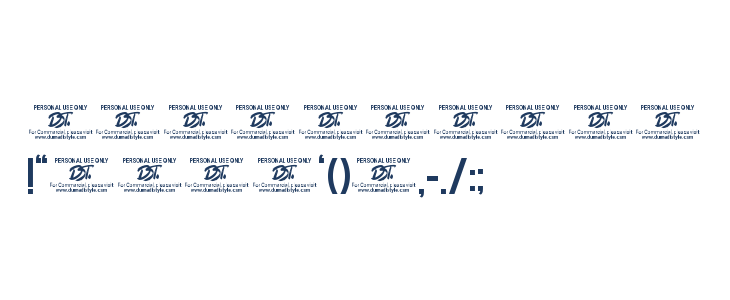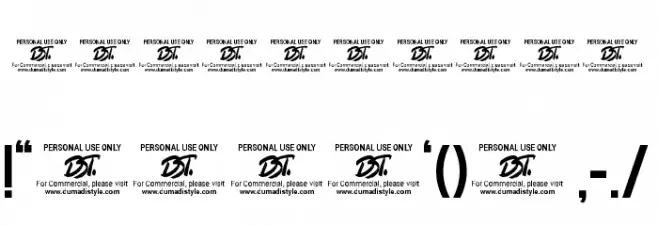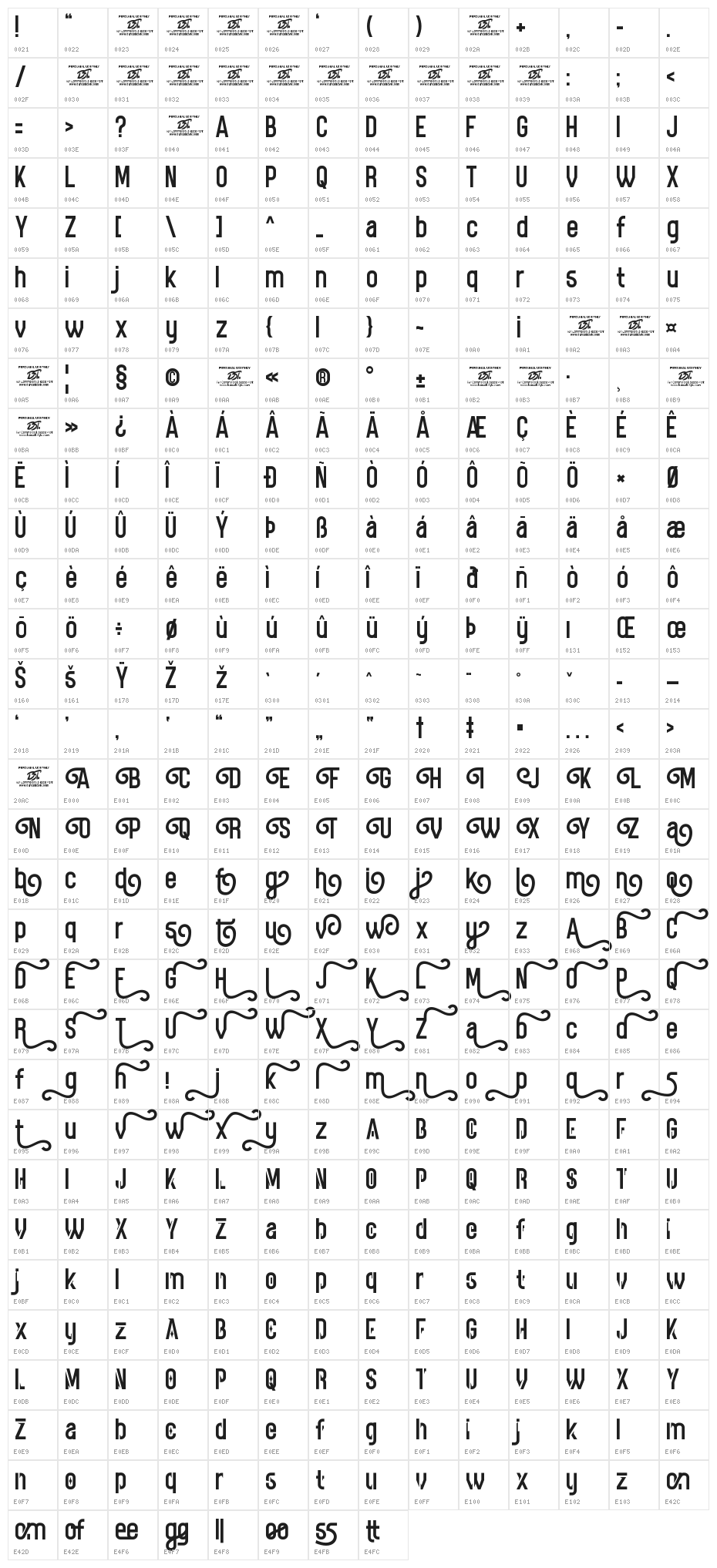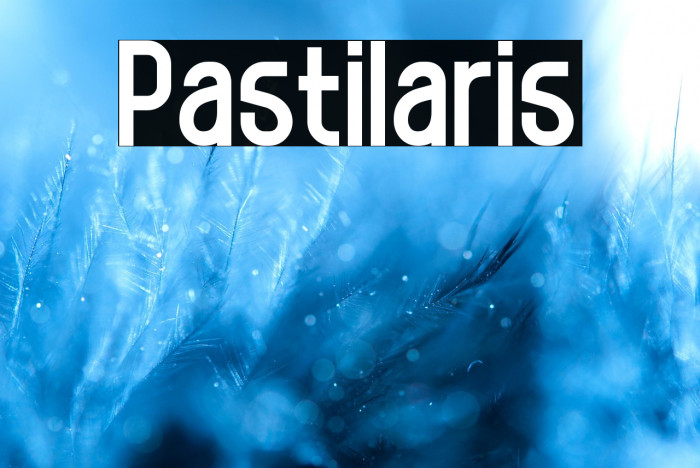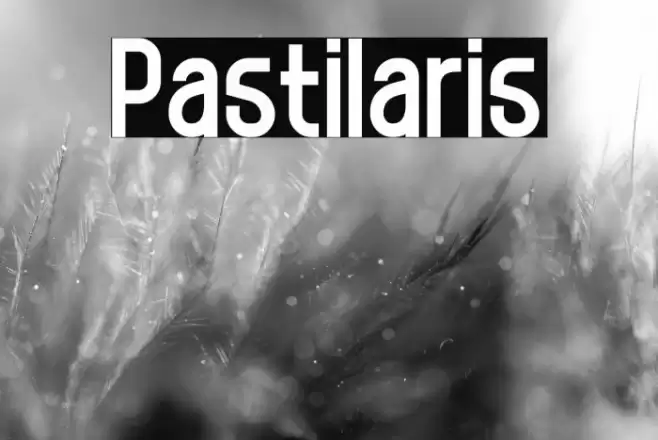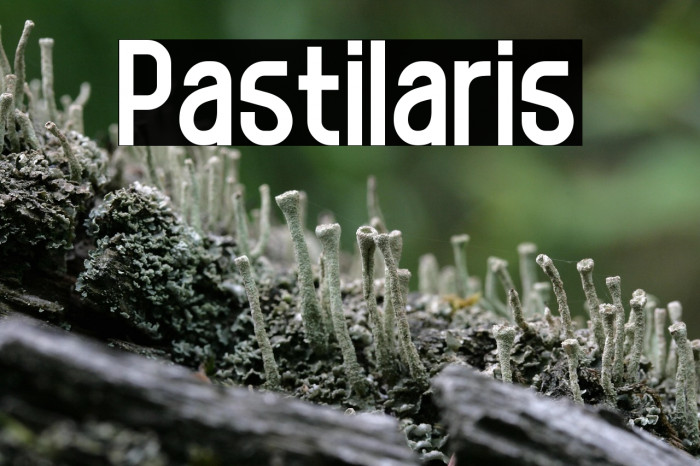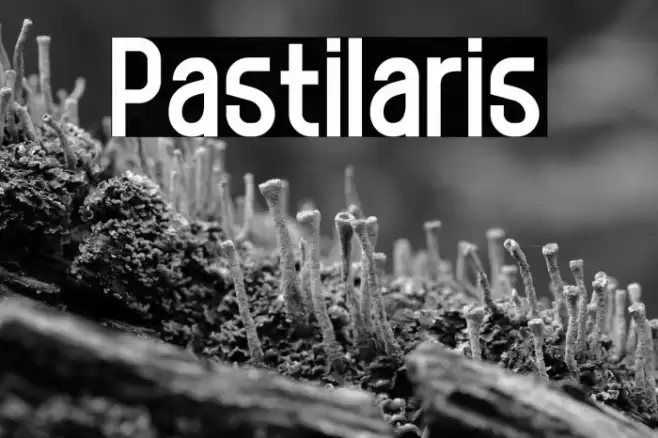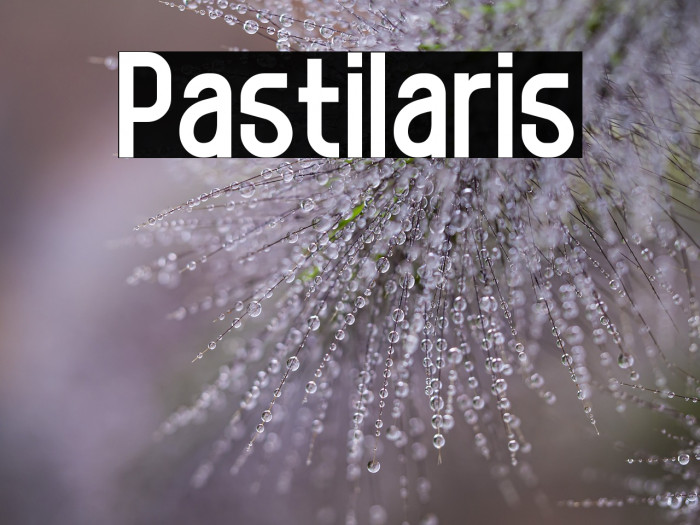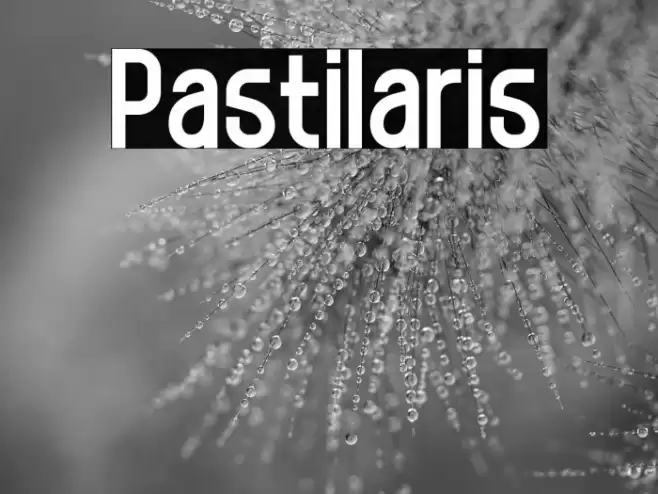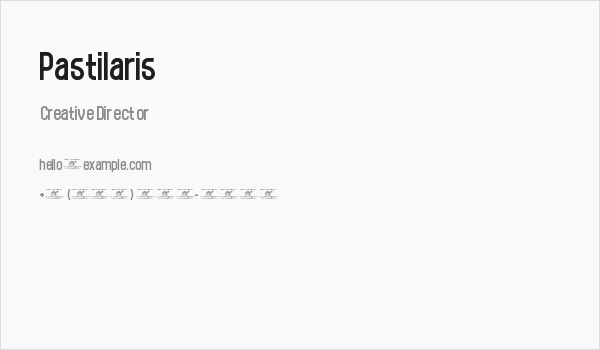
Pastilaris Font
Pastilaris Description
This font exhibits a bold and modern aesthetic with clean, straight lines and a geometric structure. The uppercase and lowercase letters are well-proportioned, maintaining a consistent height and width that contributes to its uniform appearance. The characters are slightly condensed, giving it a compact and efficient look. The font's design is straightforward, with minimal decorative elements, making it highly legible and versatile for various applications. The numbers and special characters are designed to match the overall style, ensuring consistency across all glyphs.
| Proposed Projects | Ideal for branding, advertising, headlines, and digital media where a strong, modern presence is desired. |